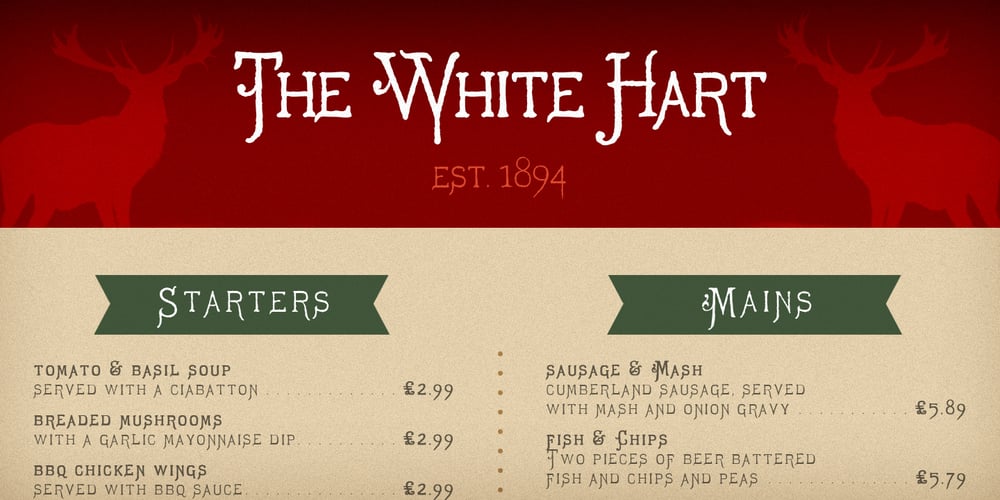
Hurstmonceux Font Family was designed by published by Anthony Prudente. Hurstmonceux contains 1 styles and family package options. Hurstmonceux is a distressed, antique Victorian-esque typeface. The eroded style is based on the aged quality of printed books from the Victorian time. Capitals are ornately decorated, with lowercase set in small caps.